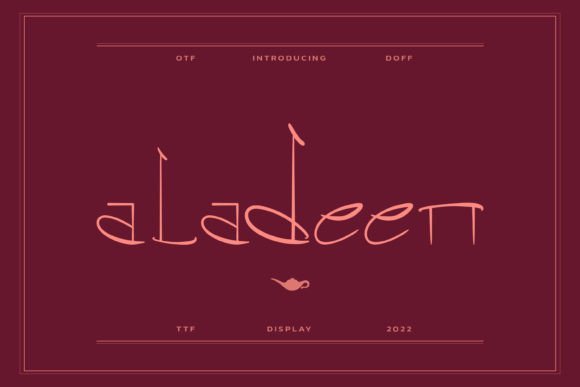
Introduction to Aladeen Font
Aladeen is a unique and stylish display font inspired by Arabic calligraphy.
Its artistic, oriental accents make this font suitable for a wide range of projects that need to be infused with a subtle Middle-Eastern vibe .
Key Features of Aladeen Font